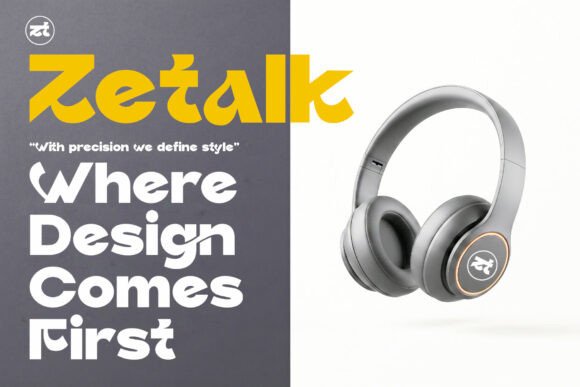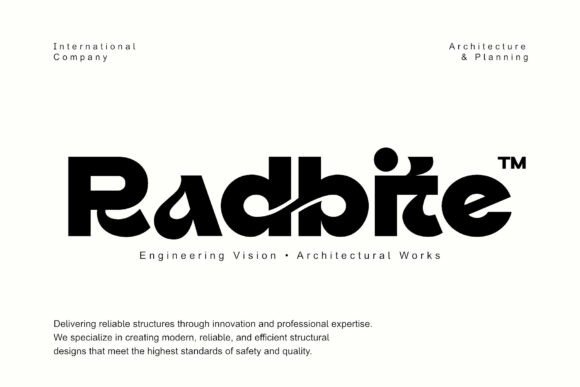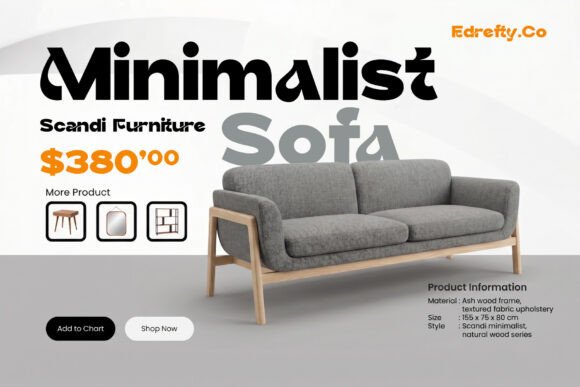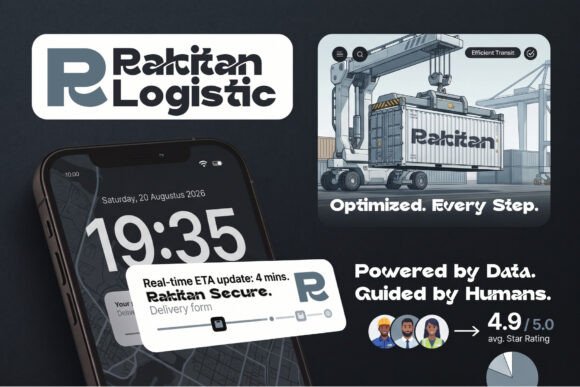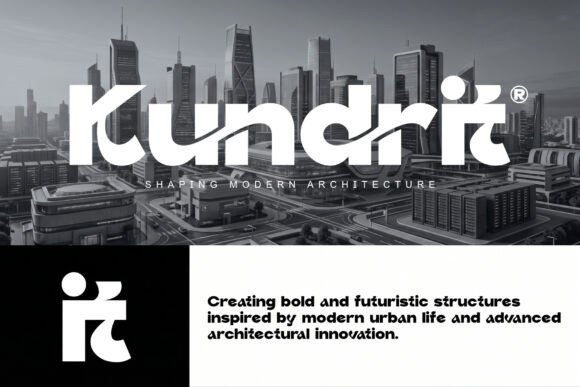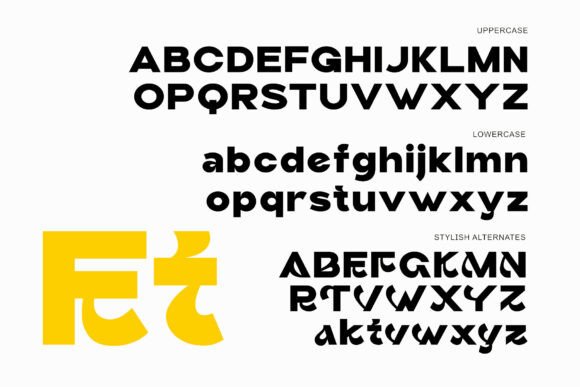
Introducing Garitz Font: Elevate Your Design with Dynamic Typeface Flow
In the world of typography, a font can make or break the visual identity of a brand. For designers and crafters looking for a modern and bold typeface that exudes elegance and sophistication, Garitz Font is an exceptional choice. This dynamic typeface is designed with a unique flowing ligature style that creates a seamless visual connection between characters, making it perfect for brands that want to stand out with a contemporary edge.
The Unique Features of Garitz Font
Garitz Font boasts a range of key features that make it an ideal choice for designers and crafters. Some of its standout features include:
- Unique flowing ligatures: The font’s ligatures create a smooth and fluid connection between characters, giving it a dynamic and artistic feel.
- Modern and dynamic letterforms: Garitz’s letterforms are crafted with a modern aesthetic in mind, making it perfect for brands that want to appear contemporary and forward-thinking.
- Strong visual impact for branding: The font’s bold and elegant personality makes it perfect for branding and advertising, where standing out from the competition is crucial.
- Clean yet artistic style: Garitz strikes a balance between minimalism and artistic flair, making it versatile enough for a wide range of creative projects.
- Suitable for logos, headlines, posters, and fashion design: Whether you’re working on a logo, headline, poster, or fashion label, Garitz is the perfect choice.
The Benefits of Using Garitz Font
So why choose Garitz Font for your next design project? Here are just a few benefits of using this exceptional typeface:
- Elegance and sophistication: Garitz exudes a sense of elegance and sophistication, making it perfect for high-end brands and luxury products.
- Versatility: The font’s clean yet artistic style makes it versatile enough for a wide range of creative projects, from branding and advertising to fashion and editorial design.
- Memorability: Garitz’s unique flowing ligatures and dynamic letterforms make it highly memorable, ensuring that your brand or design stands out from the competition.
- Easy to read: Despite its bold and artistic style, Garitz is easy to read, making it perfect for body text and headlines.
How to Use Garitz Font in Your Design
Garitz Font is easy to use and can be incorporated into a wide range of design projects. Here are a few tips for using Garitz effectively:
- Use it for headlines and titles: Garitz’s bold and dynamic style makes it perfect for headlines and titles, where you want to grab the reader’s attention.
- Pair it with a clean sans-serif font: For body text, pair Garitz with a clean sans-serif font to create a striking contrast between the two.
- Experiment with ligatures: Garitz’s ligatures are a key feature of the font. Experiment with different ligatures to create a unique and artistic look.
- Use it for branding and advertising: Garitz’s strong visual impact and elegant personality make it perfect for branding and advertising, where you want to make a lasting impression.
In conclusion, Garitz Font is an exceptional choice for designers and crafters looking for a modern and bold typeface that exudes elegance and sophistication. With its unique flowing ligatures, dynamic letterforms, and strong visual impact, Garitz is perfect for brands that want to stand out with a contemporary edge. Whether you’re working on branding, logos, fashion labels, or editorial layouts, Garitz brings a distinctive and memorable look that is sure to elevate your design.
Get Ready to Elevate Your Design with Garitz Font